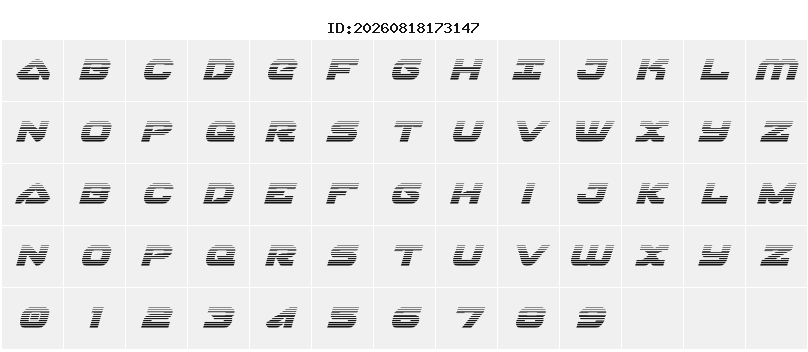
Skyhawk Scanlines Italic Preview
• Font Name: Skyhawk Scanlines Italic
• Full Font Name: Skyhawk Scanlines Italic
About Skyhawk Scanlines Italic.ttf
Skyhawk Scanlines Italic.ttf is a modern, elegant sans-serif font designed for ultimate readability and visual harmony. Perfect for branding, headlines, web design, and print materials.